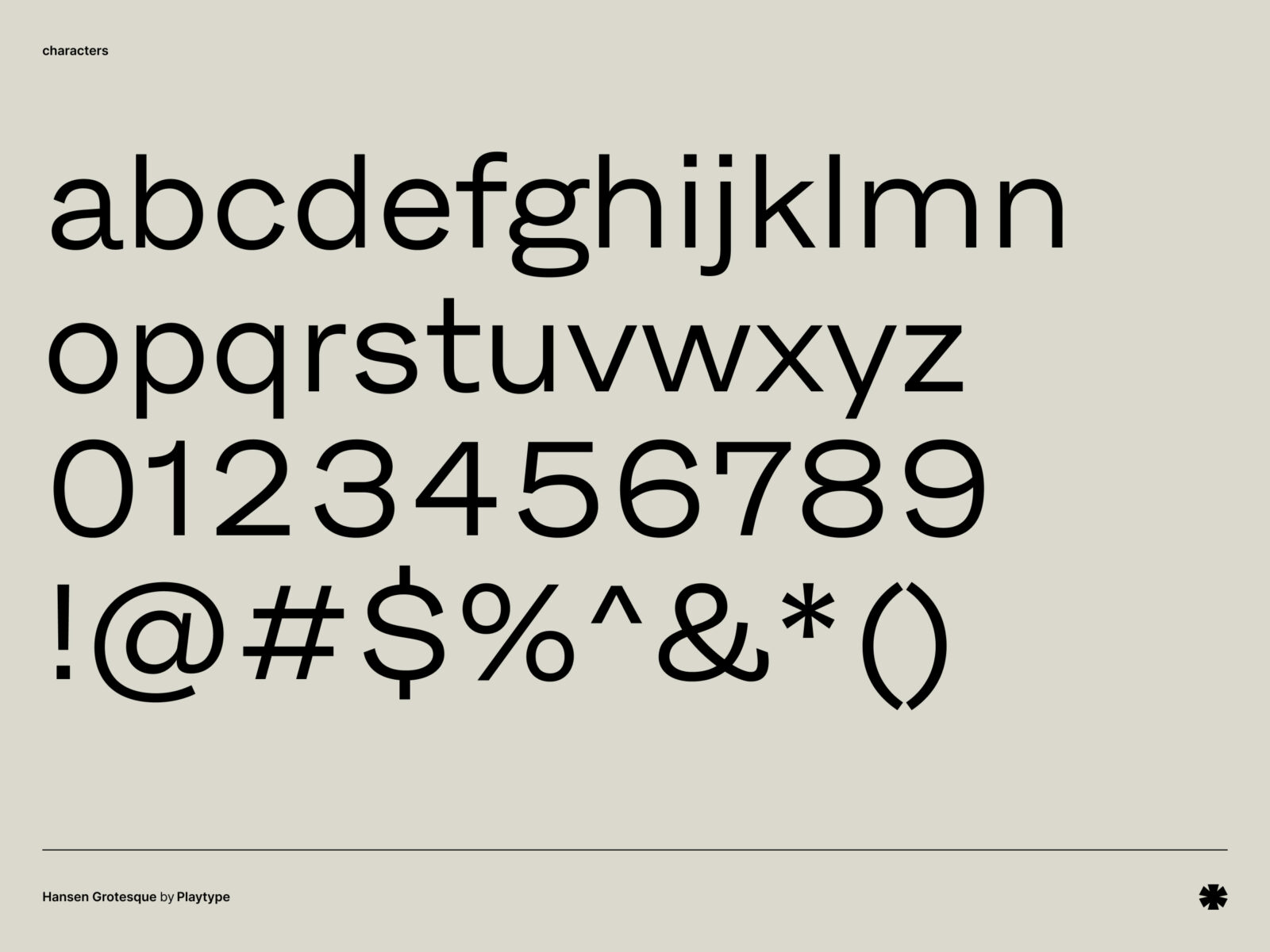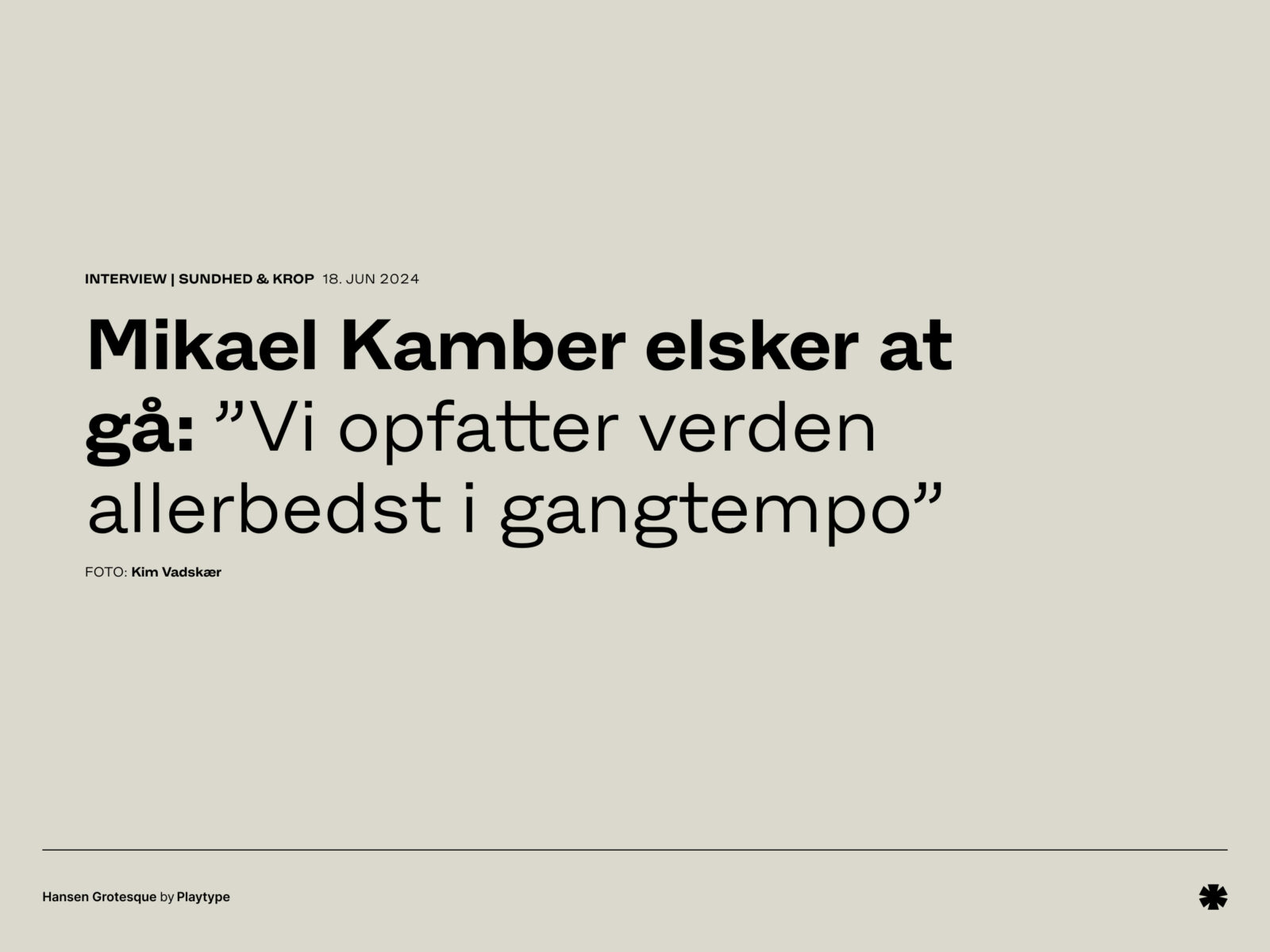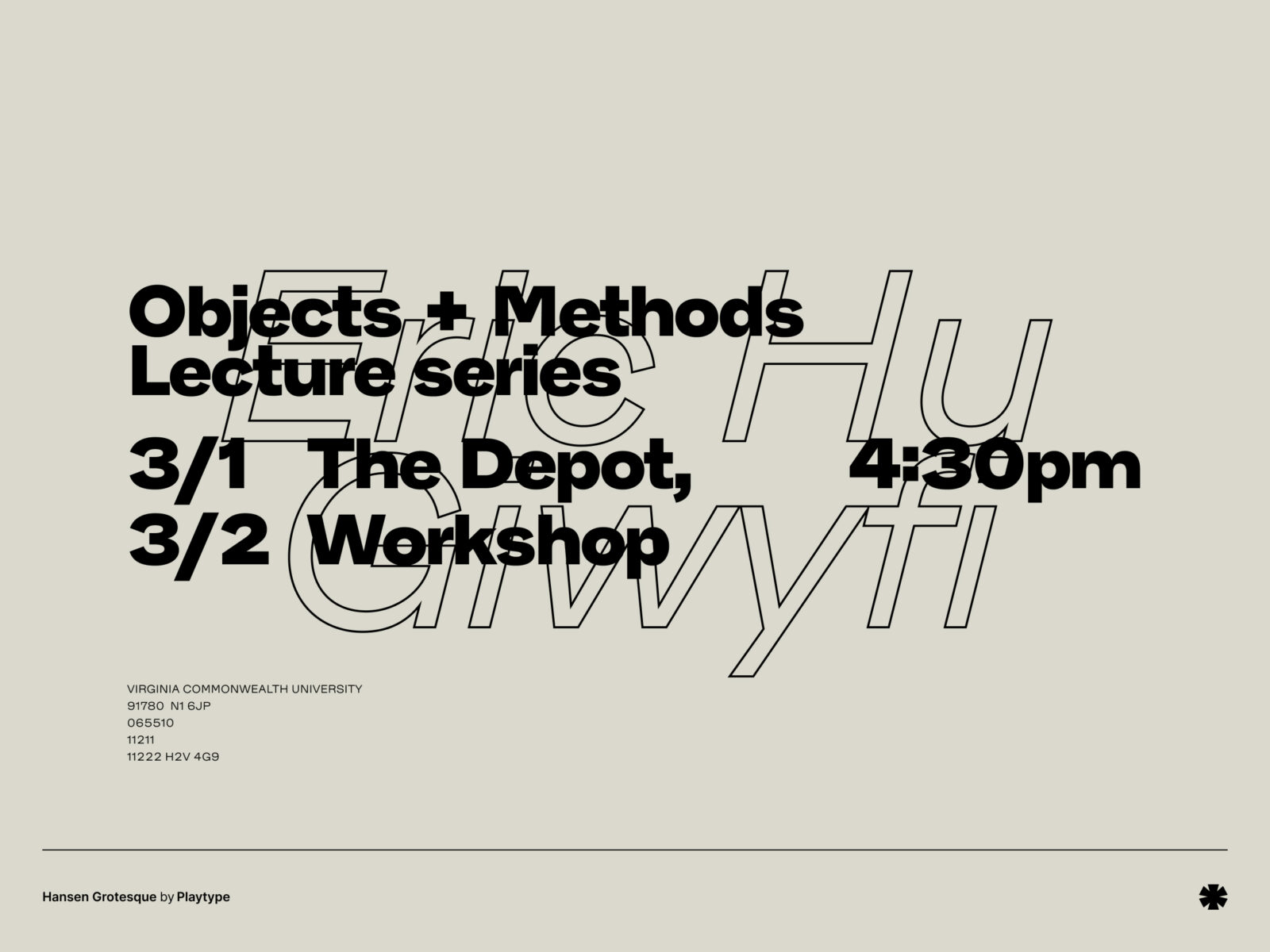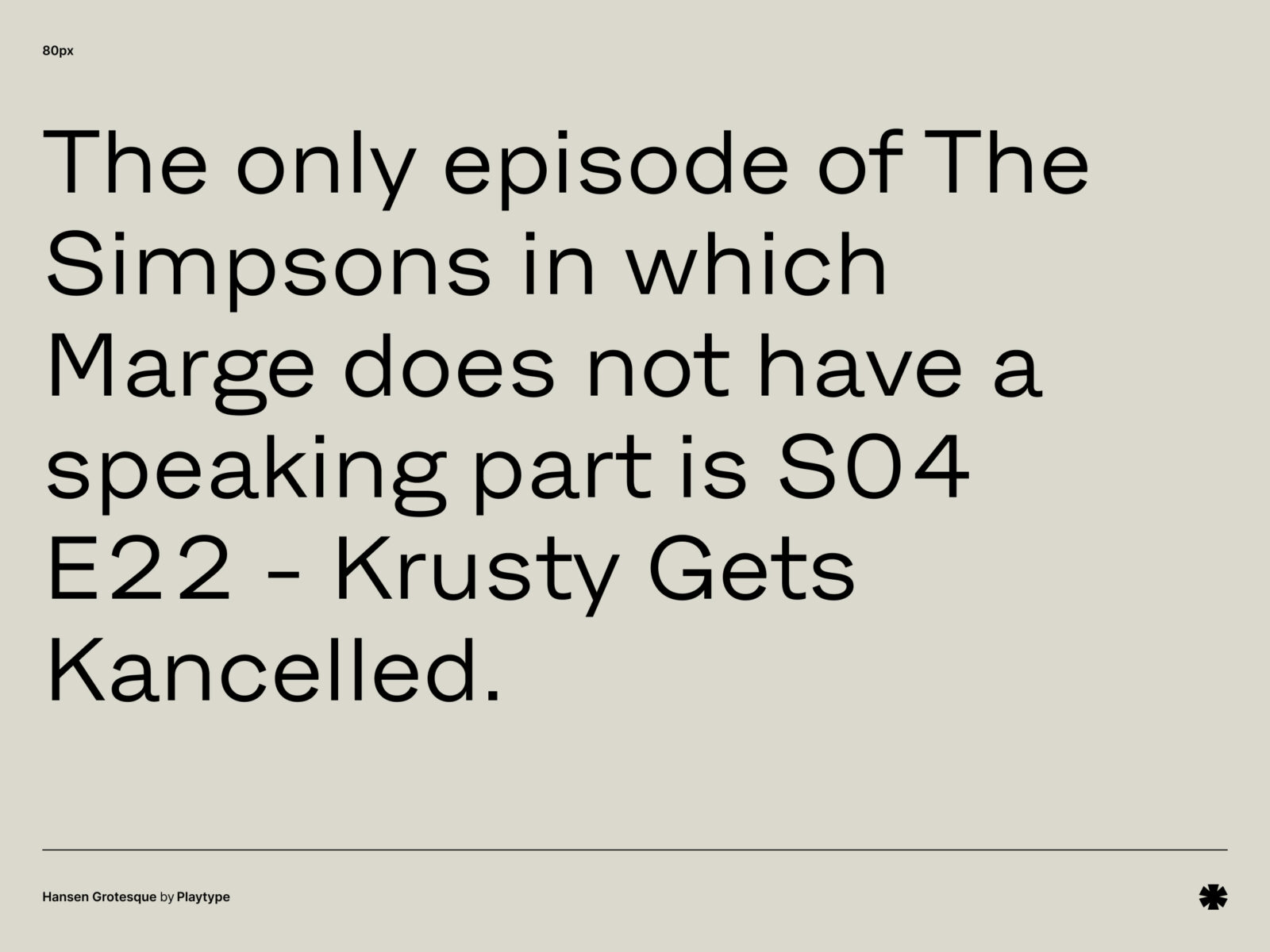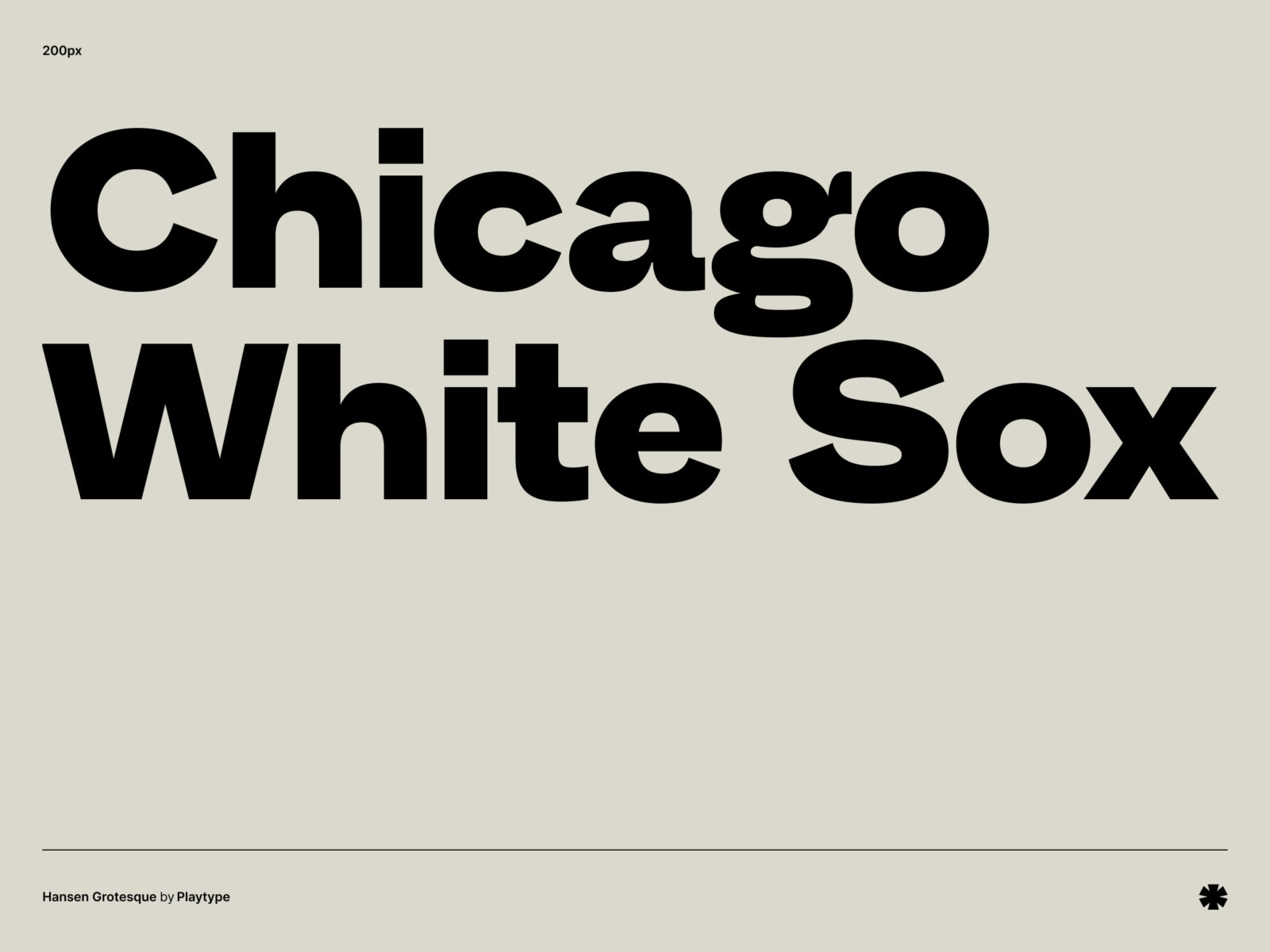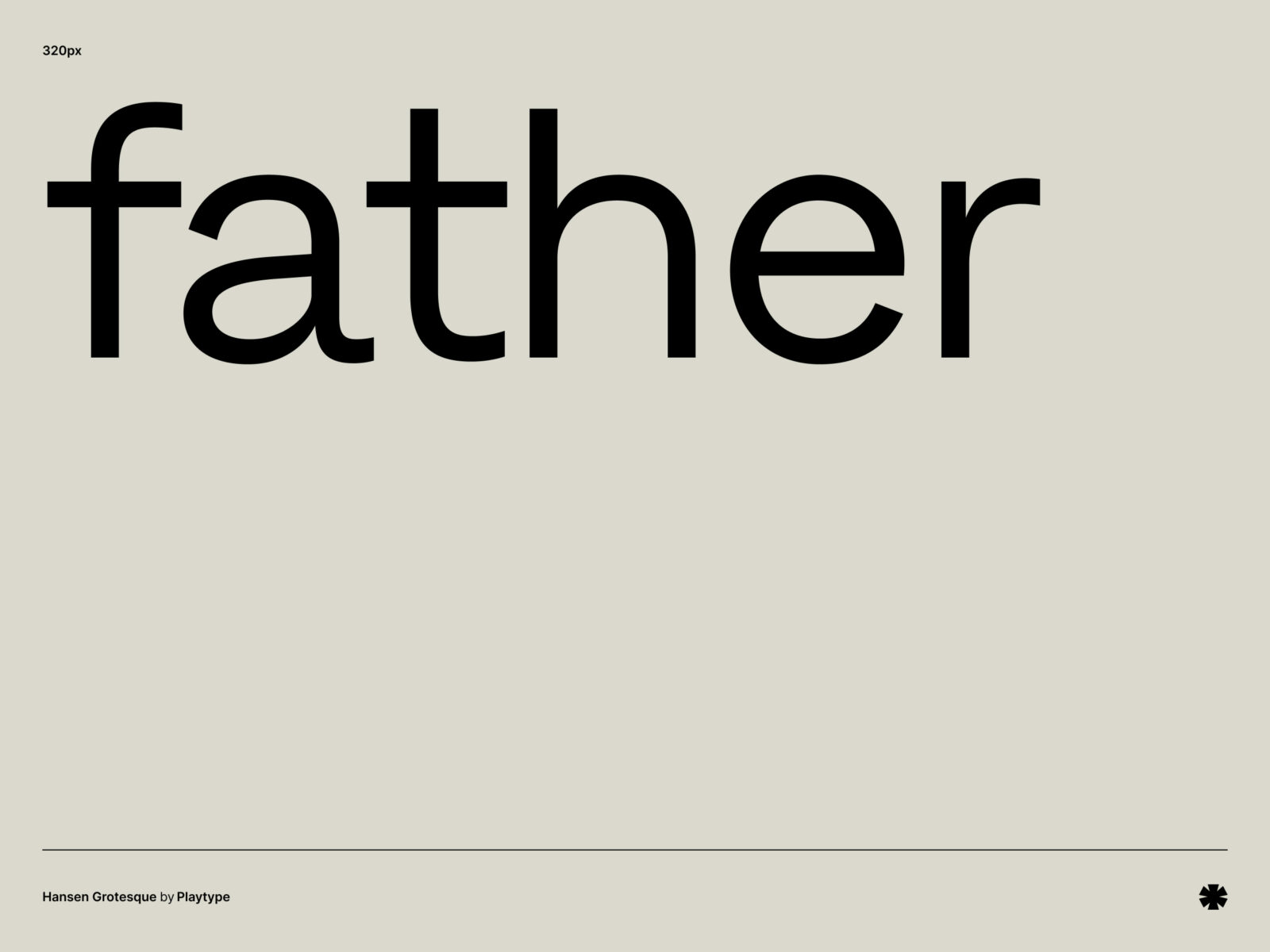
Hansen Grotesque is a distinctive typeface that merges vintage charm with contemporary flair. Its bold, clean lines and unique character shapes make it perfect for eye-catching headlines and stylish branding.
designer
Philipp Neumeyer